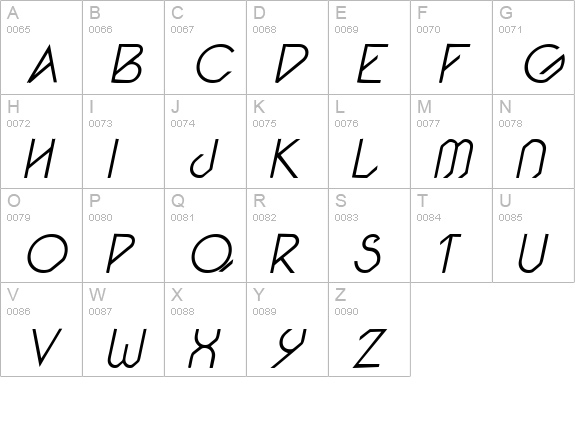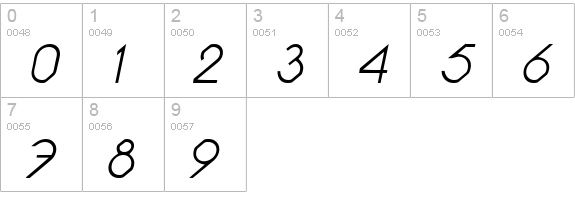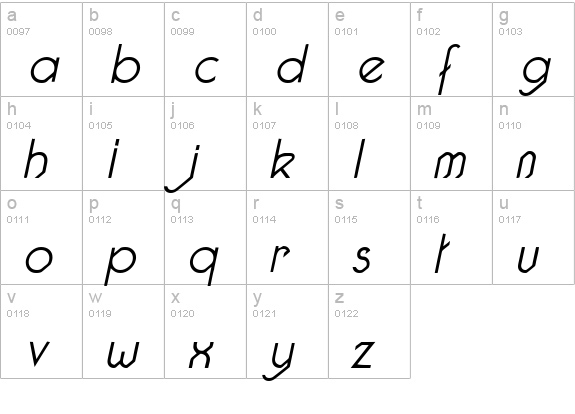
Pacotilleital light Font Details
Pacotilleital light is a refined, elegant variant in the Pacotilleital typeface family \xE2\x80\x94 well suited to elegant body text, refined sub-headings, and luxury branding.